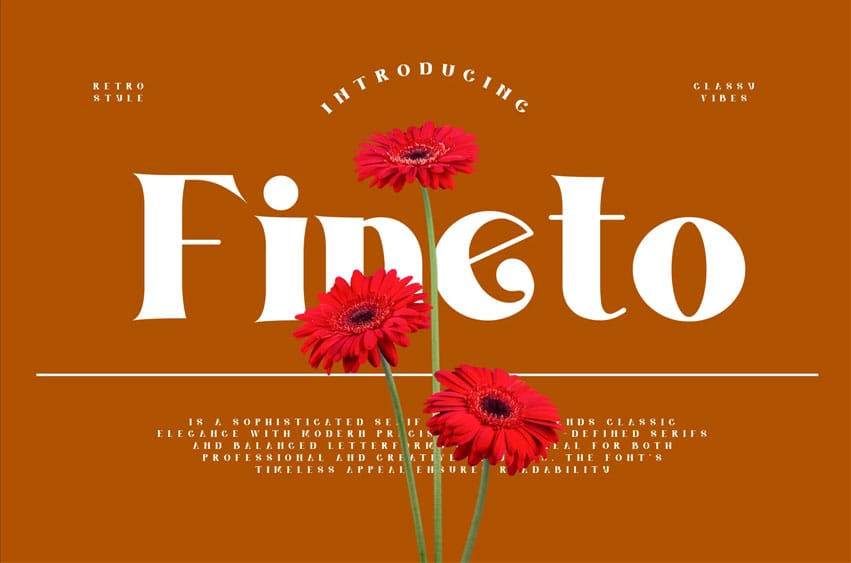
Fineto Font is a sophisticated serif font that blends classic elegance with modern precision. Its well-defined serifs and balanced letterforms make it ideal for both professional and creative projects.
The font’s timeless appeal ensures readability while maintaining an air of authority and refinement.